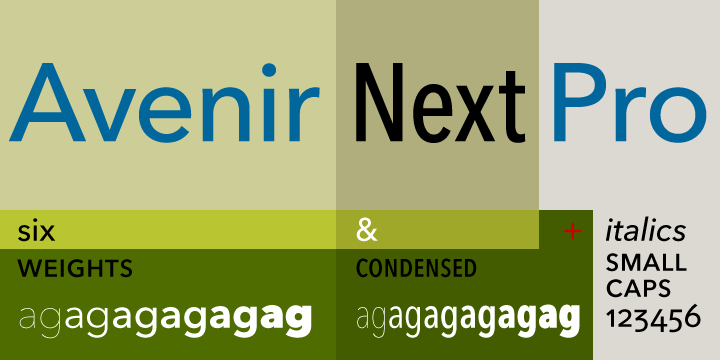
Avenir Next Pro
Avenir Next Pro is beautiful font was designed in the year 2004, by Frutiger with Linotype in-house type designer Akira Kobayashi. The primary motive of the design was to restructure the Avenir family and make it proficient in handling on-screen display issues. This new font was titled Avenir Next. The typeface family was then increased … Read more